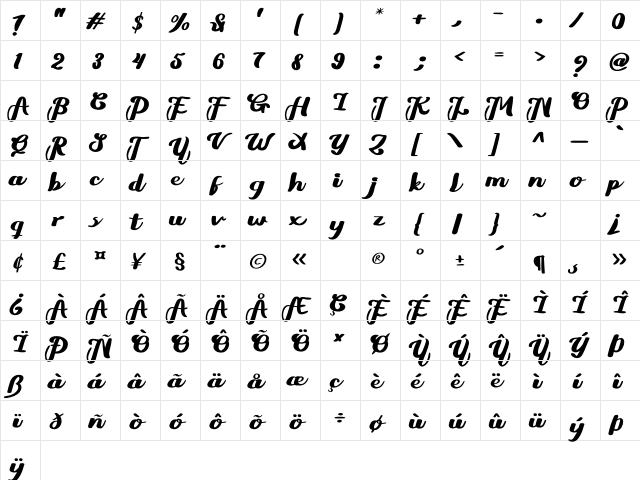
Biund Regular
| Foundry | ROZI |
| Designer | ROZI |
Design Context for Biund Typeface
Biund is a composed and adaptable typeface that performs quietly and consistently across a wide range of design contexts.